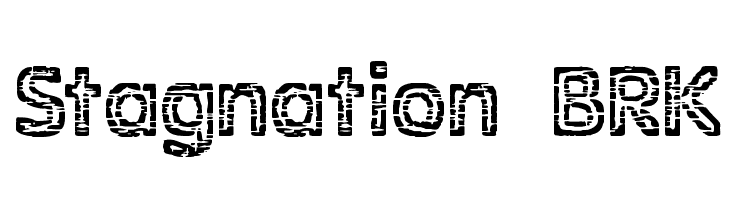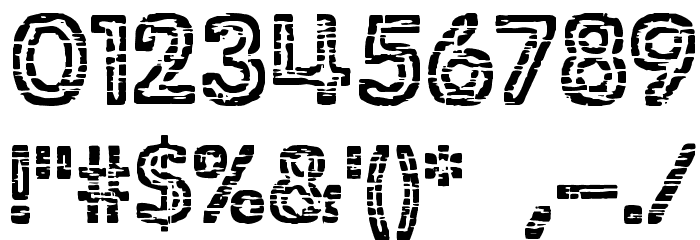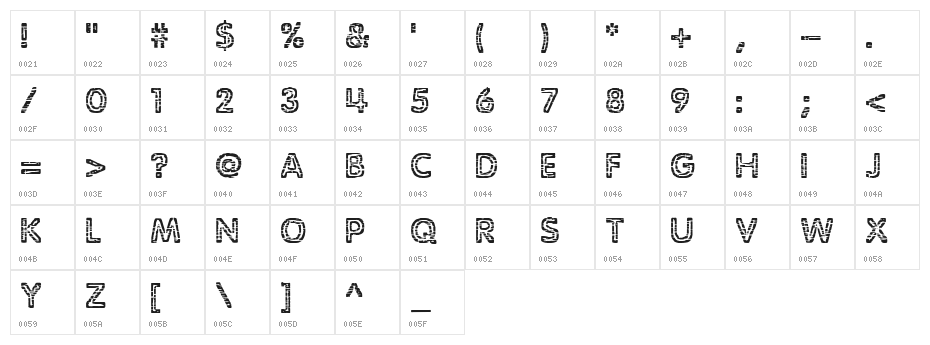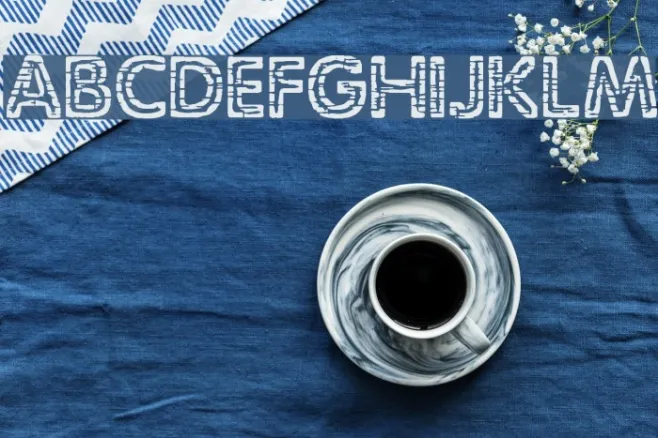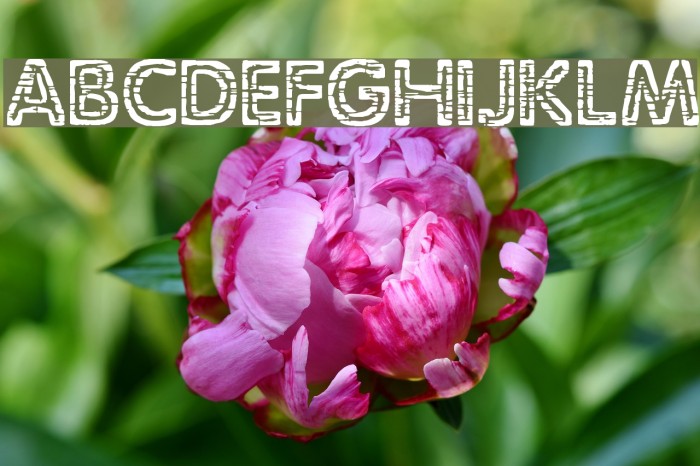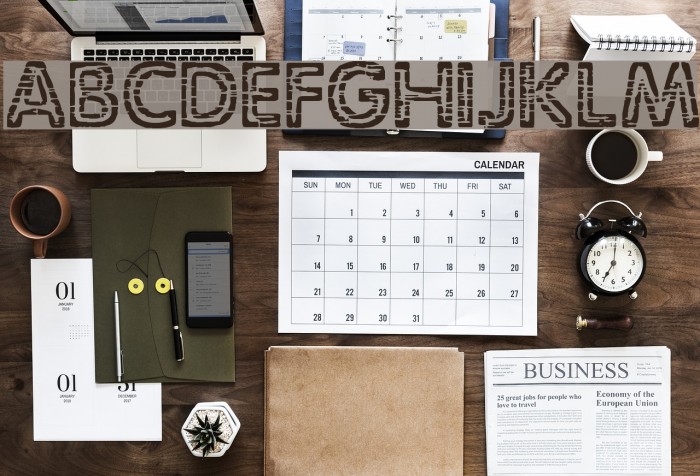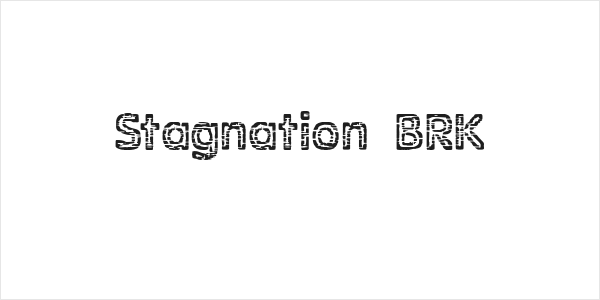
Stagnation BRK Font
Stagnation BRK Description
This font features a bold, distressed style with a unique, textured appearance. Each character is outlined with a rough, uneven pattern that gives it a weathered, vintage look. The uppercase and lowercase letters maintain a consistent design, with the texture adding a dynamic and eye-catching element. The numbers and special characters follow the same aesthetic, ensuring a cohesive appearance across all glyphs. This font's distinctive style makes it ideal for projects that require a bold statement or a touch of rugged charm.
| Proposed Projects | Ideal for posters, album covers, branding, and any design needing a bold, vintage touch. |